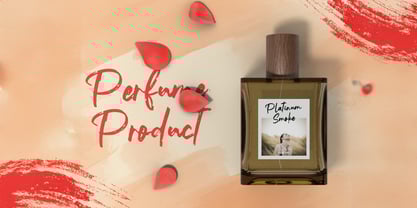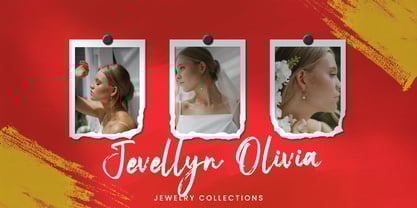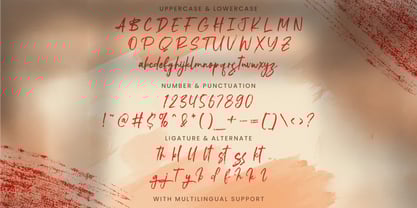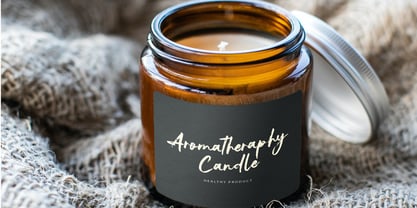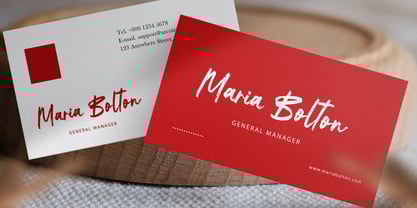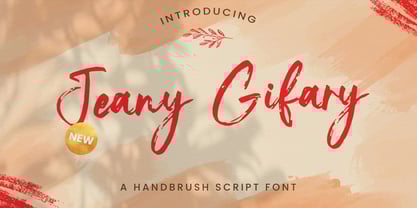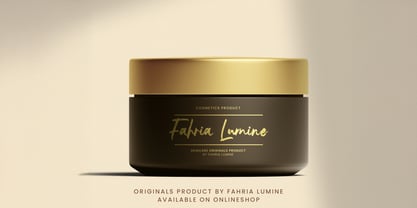
Jeany Gifary
by Stringlabs Creative Studio
The Jeany Gifary Font Family was designed by Virgiawan Listanto and published by Stringlabs Creative Studio. Jeany Gifary contains 1 styles. More about this family
Bring your designs to life with the edgy charm of Jeany Gifary, a textured brush font full of bold character and raw style. With its hand-painted strokes and natural brush imperfections, this font delivers a rebellious, streetwise attitude perfect for standing out. Whether you're working on a poster, music cover, fashion label, or social media graphic, Jeany Gifary adds that handcrafted, energetic flair that grabs attention.